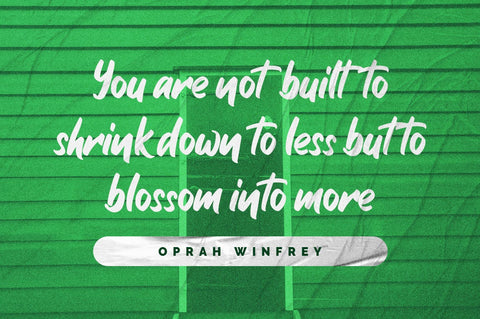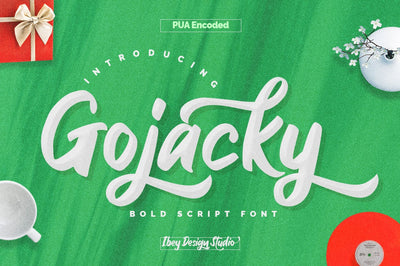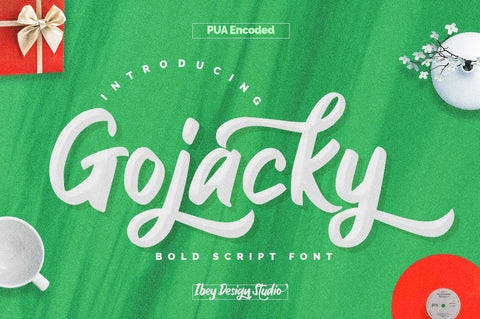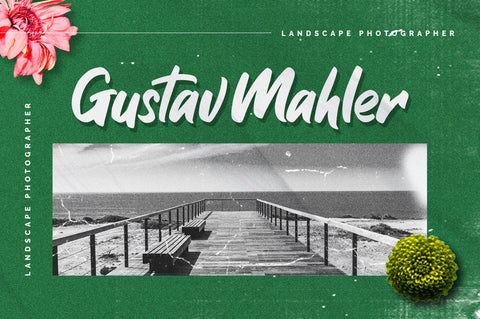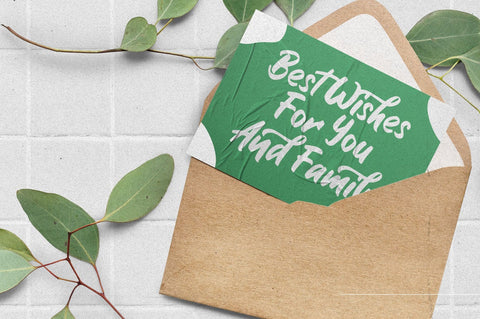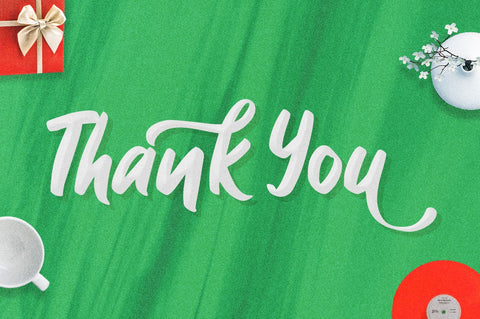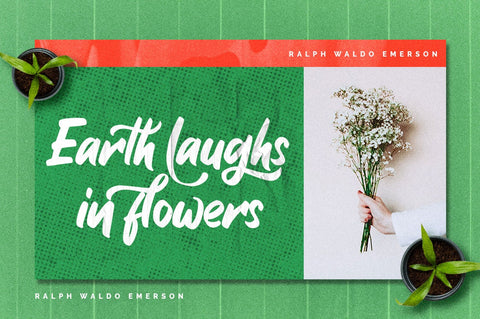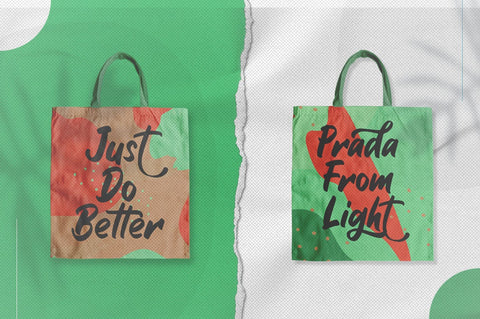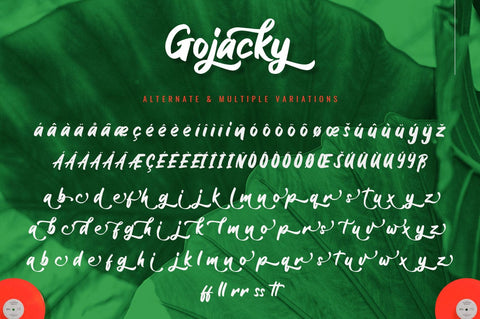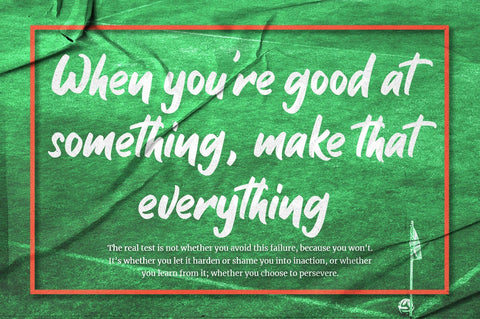
Gojacky - Bold Script Font
Gojacky Bold Script Font is a gorgeous and bold handwritten font, crafted to give your headlines and logotype projects a stylish touch. This font reads strong, confident, and dynamic and can add tons of nostalgic character to your designs.
Gojacky Bold Script Font is PUA encoded which means you can access all of the beautiful glyphs and swashes with ease!